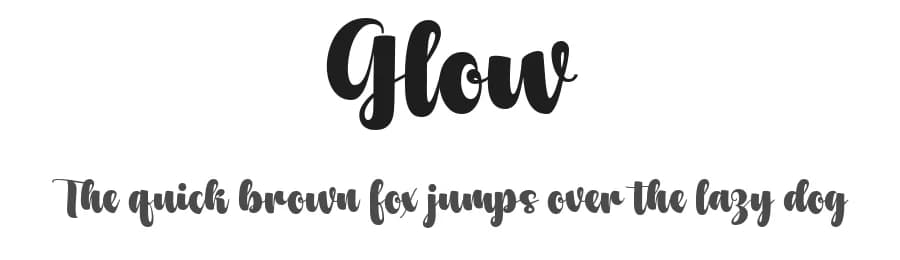
About Glow Font
Glow Specifications
| Font Family | Glow |
| Full Name | Glow Regular |
| PostScript Name | Glow-Regular |
| Designer | WAIS AL-QARNI |
Glow Font is a script font that shines as a display or heading face. Pair it with a clean sans-serif or serif font for body text β the contrast creates a clear hierarchy while the two styles stay balanced and easy to read.
Glow Font
by Wais Alqarni